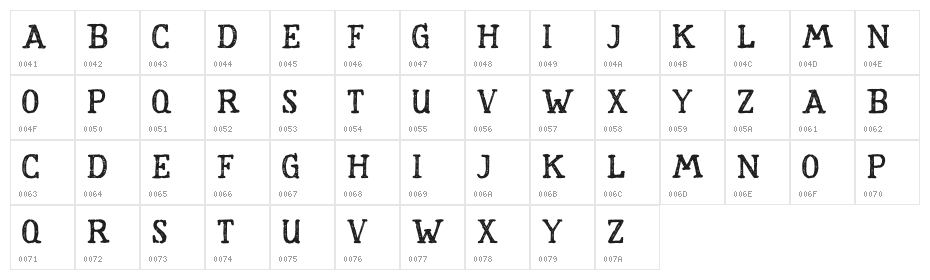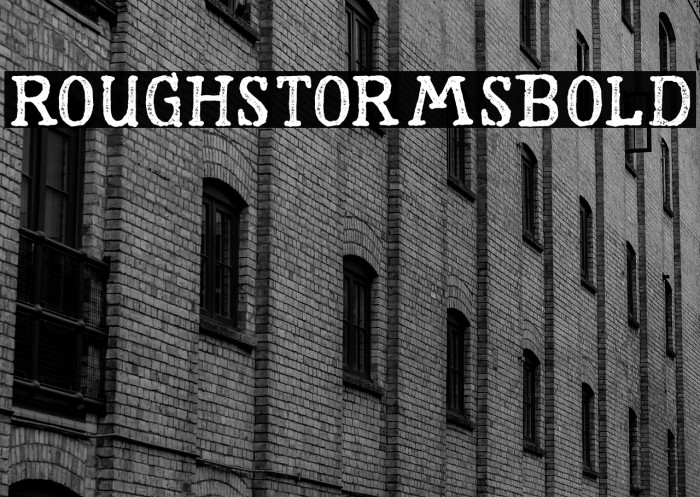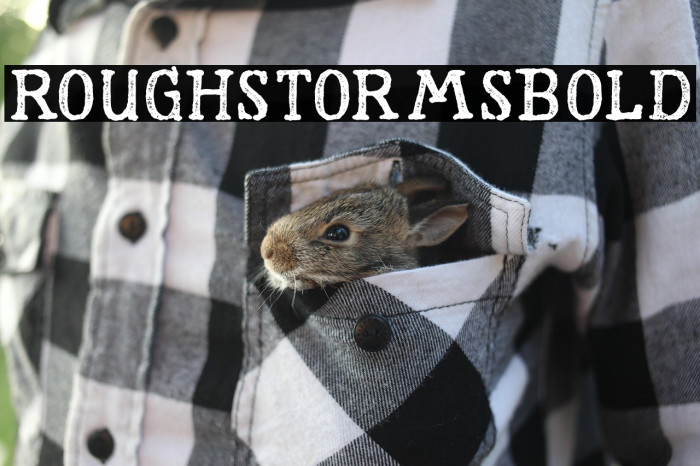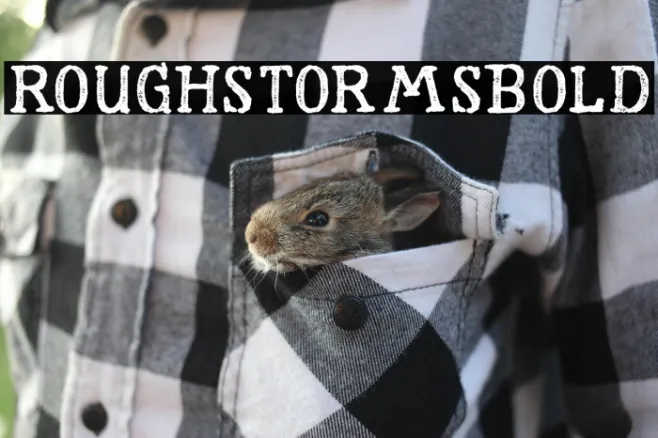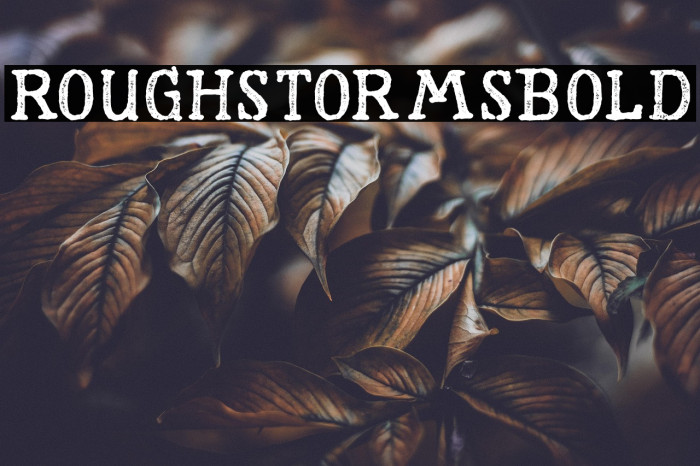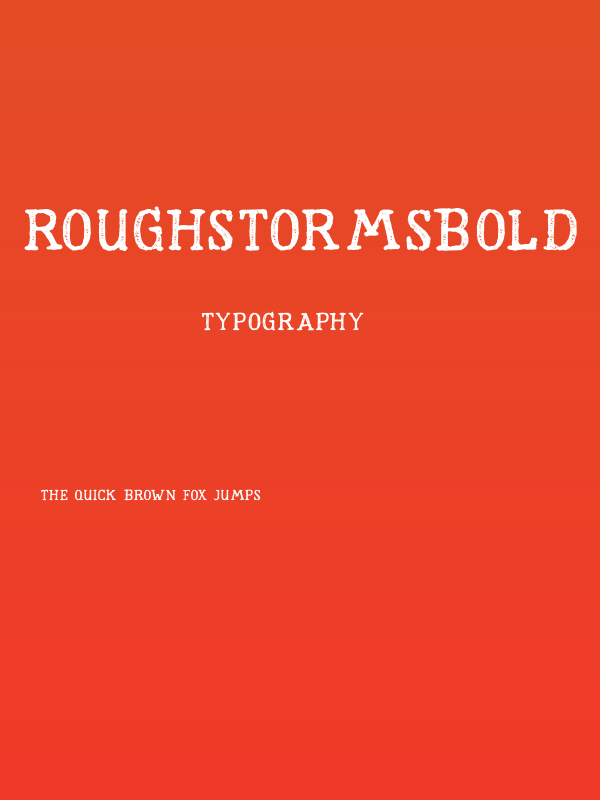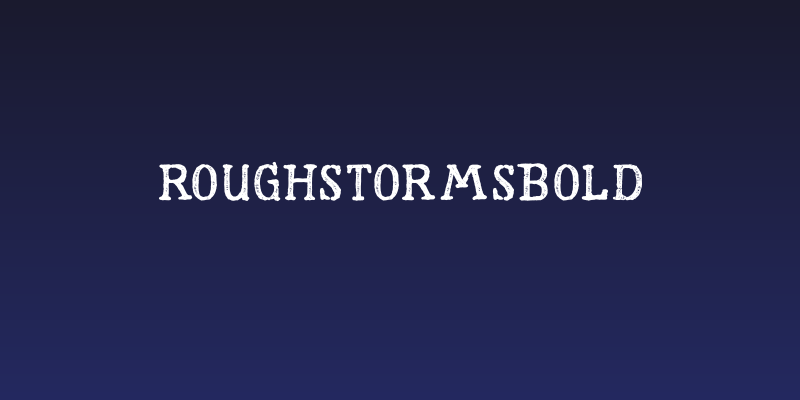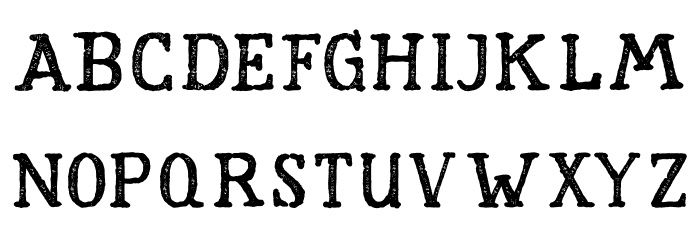
RoughStormsBold Font
RoughStormsBold Description
This font features a rugged, distressed appearance, giving it a weathered and vintage feel. The characters are bold with a slightly irregular texture, reminiscent of old typewriter prints or stamped letters. The uppercase letters are prominent, with a strong presence that commands attention. The font's rough edges and uneven strokes add to its charm, making it ideal for projects that require a touch of nostalgia or a handcrafted look. Its boldness ensures readability while maintaining a unique style.
| Proposed Projects | Ideal for vintage-themed posters, rustic branding, album covers, and any design needing a handcrafted, nostalgic touch. |